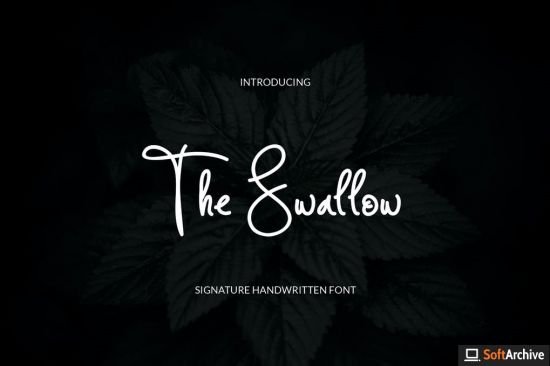
The Swallow Font is based on original handwritten. this font is perfect for making your set of apparel, T-shirt,Hoodie, quotes, product packaging, brand, blog posts, greeting cards, labels, posters, wall art, etc